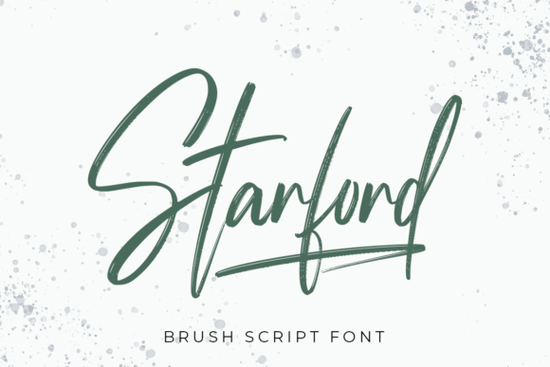
If you're looking for a handwriting font that feels personal and expressive, Starford Handwriting Brush Font is a solid choice. It’s a brushed-style script with natural flow, perfect for projects where you want something that looks hand-drawn but still professional. Whether you’re designing wedding invitations, creating greeting cards, or adding flair to business branding, this font fits right in.
What makes Starford Handwriting Brush Font stand out?
Unlike many fonts that limit access to special characters, Starford uses PUA encoding. That means you can easily use all the extra swashes, ligatures, and decorative glyphs without needing complex keyboard shortcuts or third-party tools. If you’ve ever struggled to find a stylish flourish in your design, this feature saves time and keeps your workflow smooth.
The brush stroke effect gives it a soft, organic feel like ink flowing across paper. It works well on both light and dark backgrounds, making it flexible for digital and print use. You’ll notice it adds warmth to quotes, logos, and even t-shirt designs, especially when paired with minimal layouts.
Great for creative projects across categories
- Wedding invitations – Add a romantic touch to save-the-date cards or ceremony programs.
- Greeting cards – Perfect for birthdays, thank-yous, or seasonal messages.
- Business branding – Use it in logos or letterheads for a friendly, approachable look.
- Print-on-demand items – Ideal for mugs, tote bags, and apparel with personalized phrases.
- Posters and quotes – Great for social media graphics or wall art with inspirational text.
Because it’s designed with real handwriting in mind, it avoids the stiff, robotic look some scripted fonts have. Instead, it feels like someone carefully wrote each word by hand just what you want for heartfelt or artistic work.
How to get the most out of Starford in your designs
Try pairing it with a clean sans-serif font for contrast. For example, use Starford for headings and a simple font like Open Sans or Montserrat for body text. This combo balances elegance with readability.
When using swashes, don’t overdo them. A single flourished letter at the start of a sentence can make a big visual impact without overwhelming the design. Also, keep line spacing generous handwritten fonts often need more room to breathe.
For crafters and small business owners, consider creating themed templates: one for baby showers, another for boutique packaging, or a set for seasonal promotions. Having reusable layouts speeds up your workflow and helps maintain brand consistency.
Why designers are choosing Starford over other options
It’s also popular among those who create content for Instagram, Etsy, or Pinterest. The font’s casual yet polished style appeals to audiences who value authenticity and handmade charm.